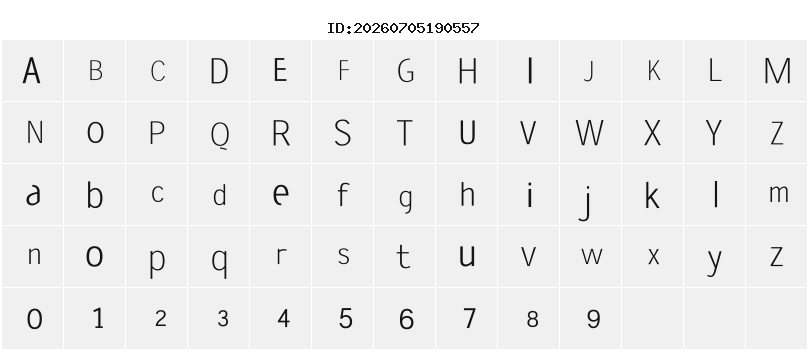
About Diversitia.ttf
Diversitia.ttf is a modern, elegant sans-serif font designed for ultimate readability and visual harmony. Perfect for branding, headlines, web design, and print materials.